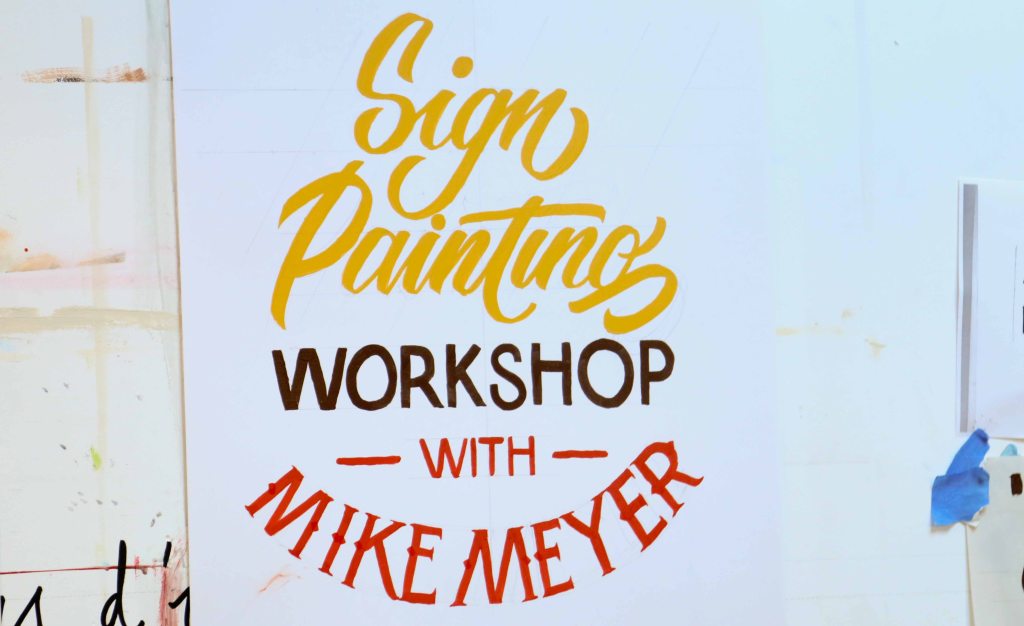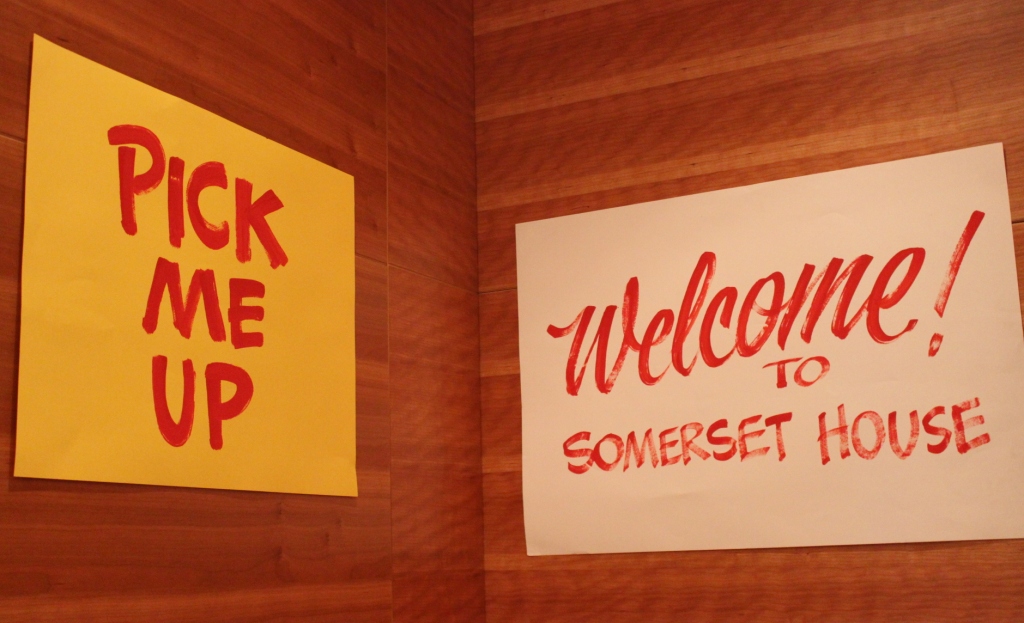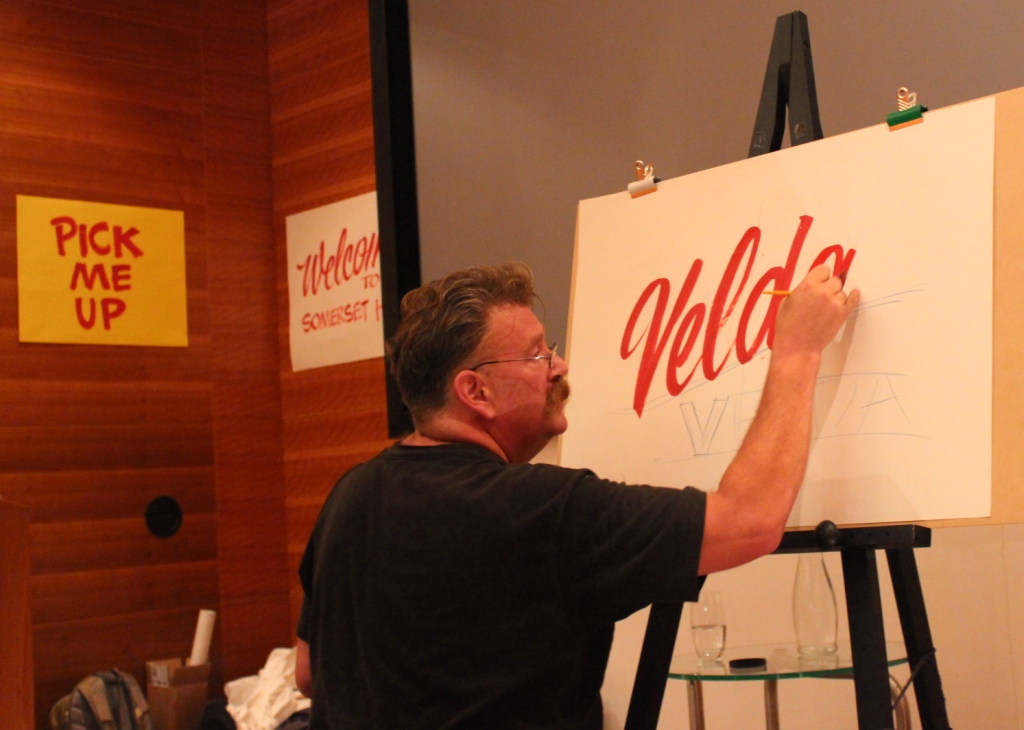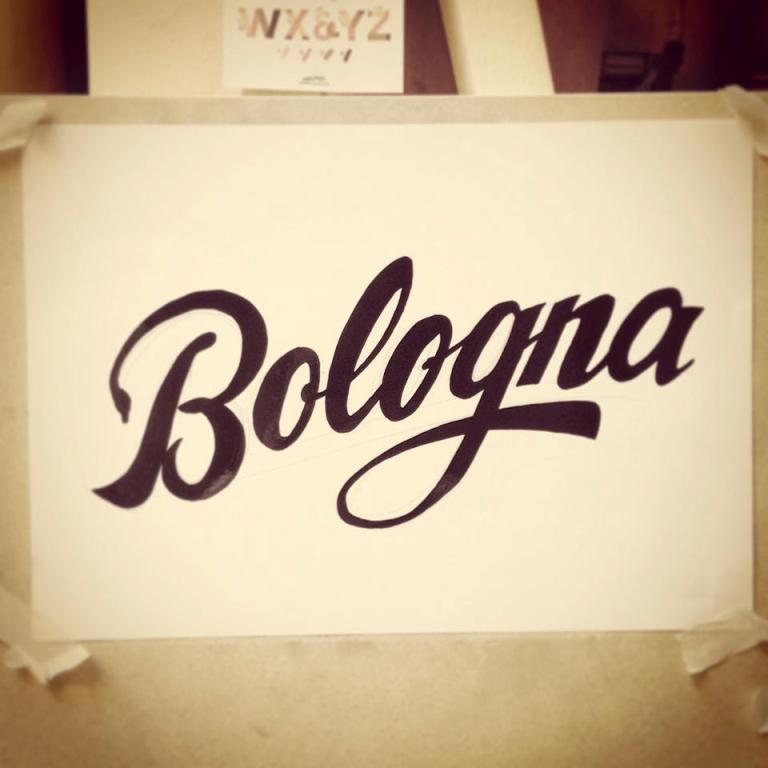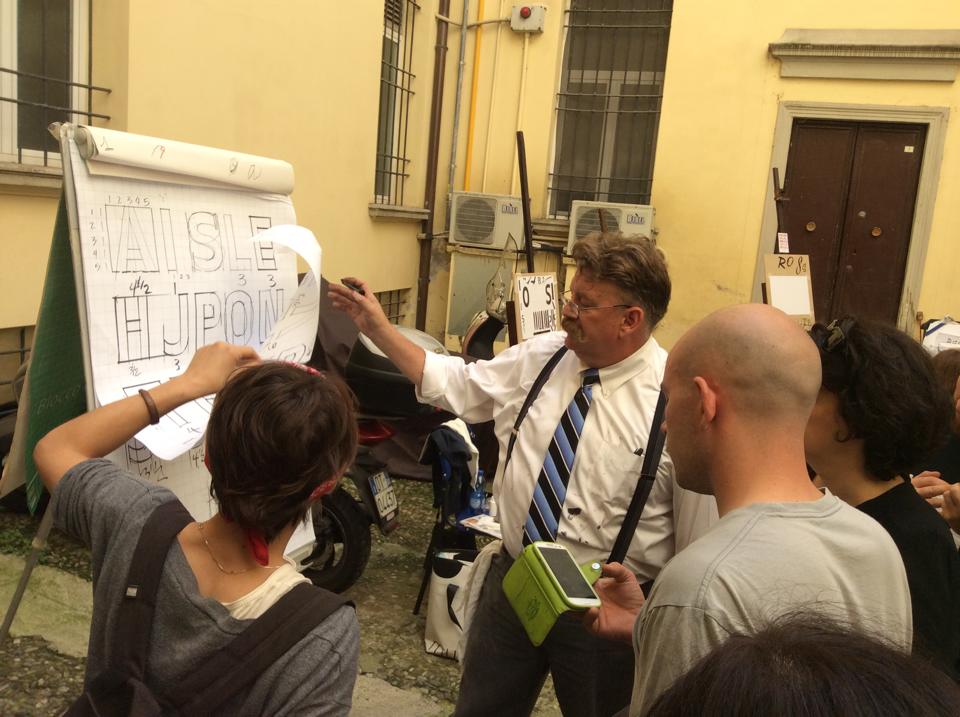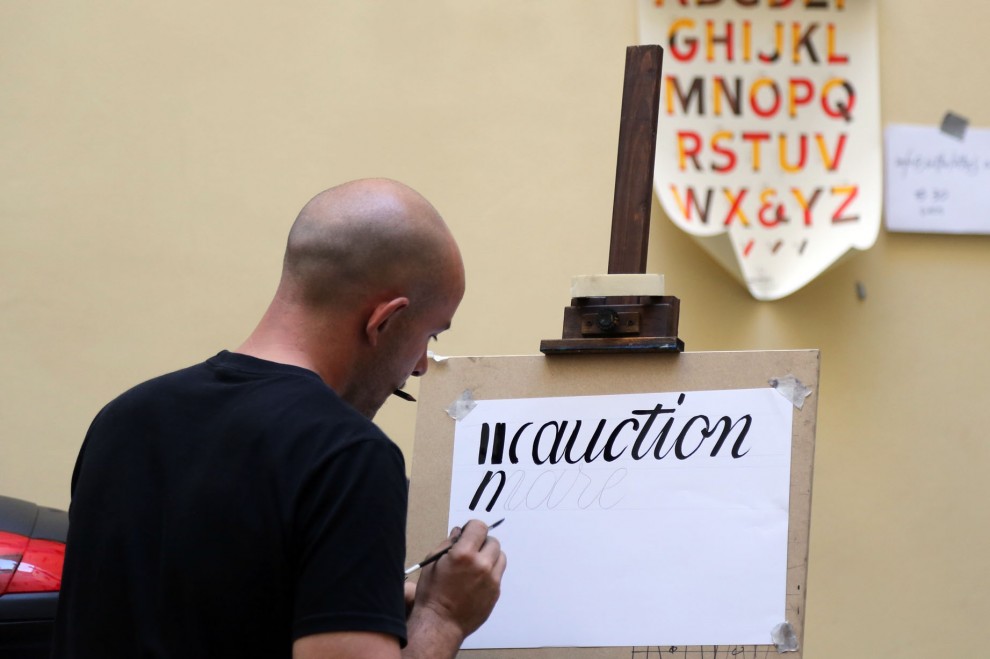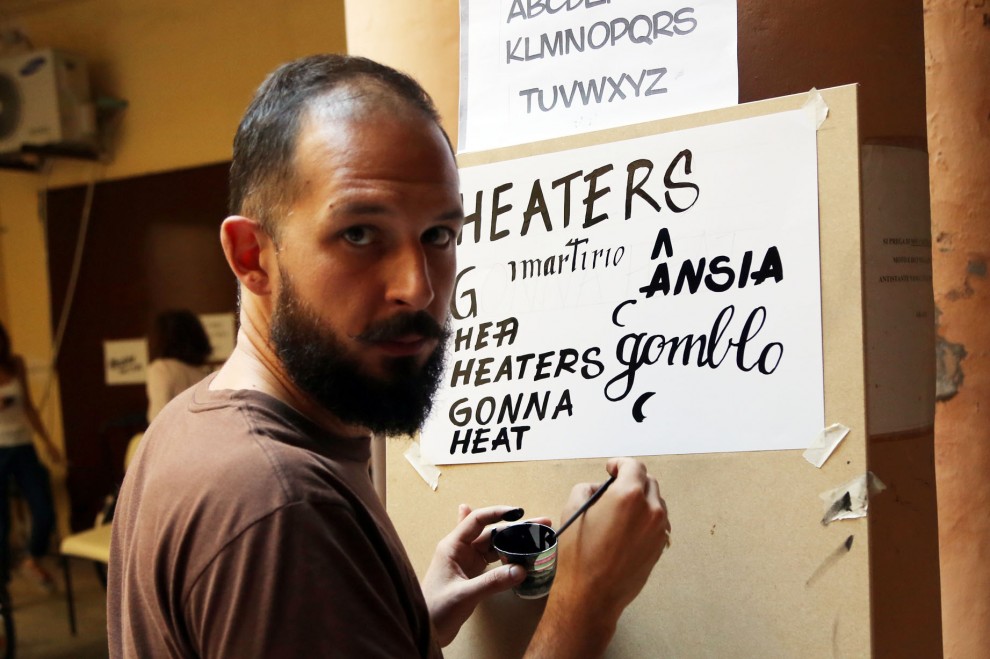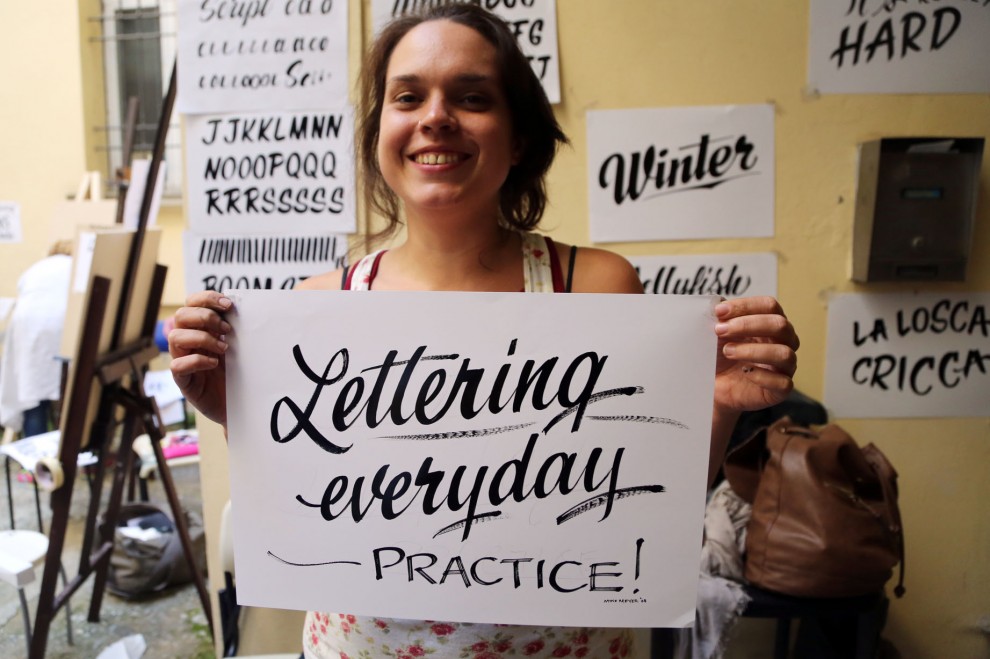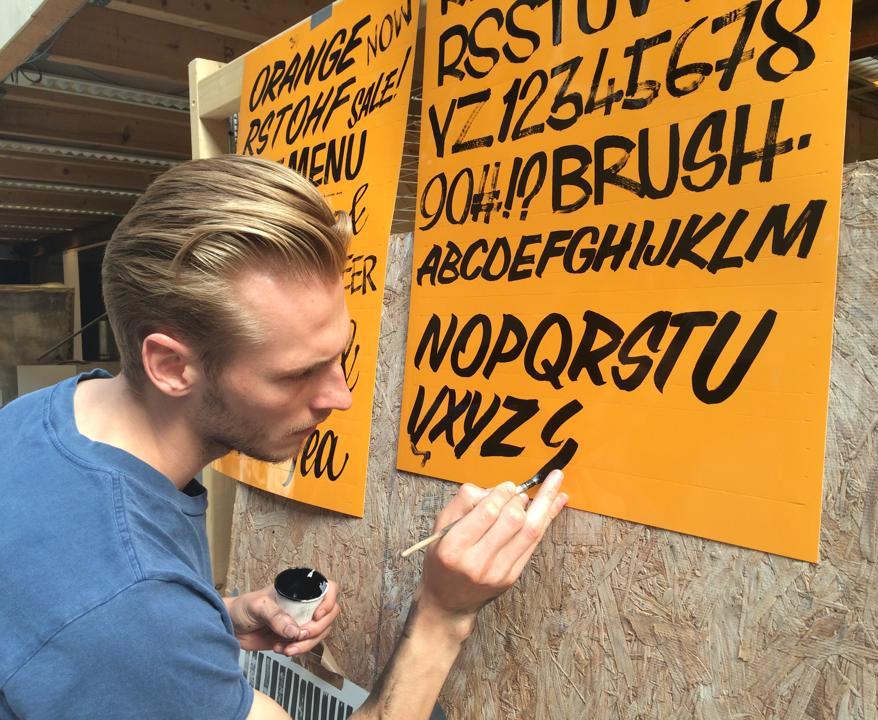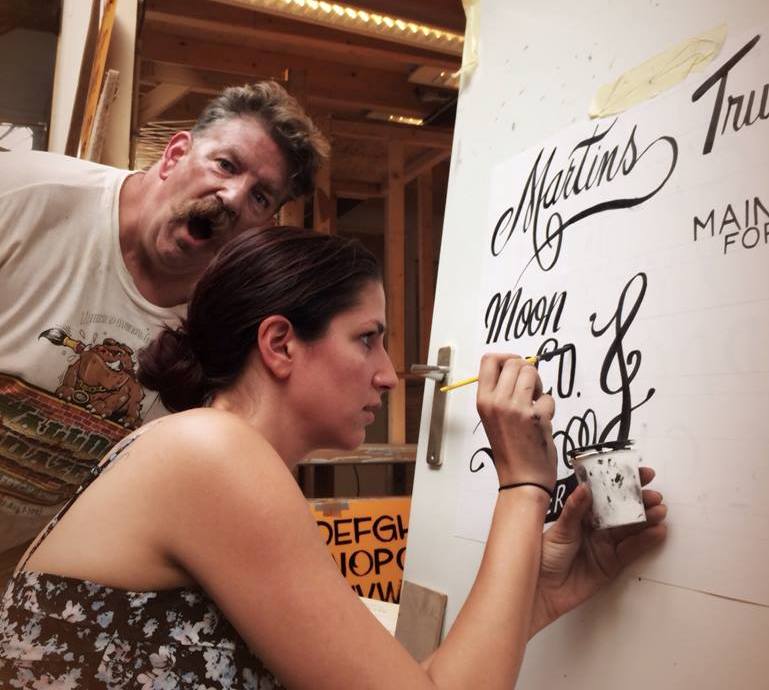
Watch this amazing short film on Mike Meyers' signs of the times
“Is hand-lettering making a comeback?” asked Rochester Magazine Mike Meyers, sign painter in the old-school, hand-lettered style. “It is. It’s coming back, because people are getting used to the digital stuff. It’s all the same the same. What I do today is considered retro or vintage. What’s wrong with that? You can read it, it’s got some style. I’m doing stuff that makes people money” said one of world's most active professionals of hand-lettered typography. His services include signs, murals, and custom period correct signage for any need. “I am good but not perfect, so dedicated nitpickers and chronically unhappy should seek elsewhere” he added with a stroke. This is his story, filmed and edited by Jérôme Sallerin, a typornographer of our kind, in September of 2014 in Paris, where Better Lettersorganized a workshop full of creativity. “Let’s do it” says Mike Meyers. We sure will.